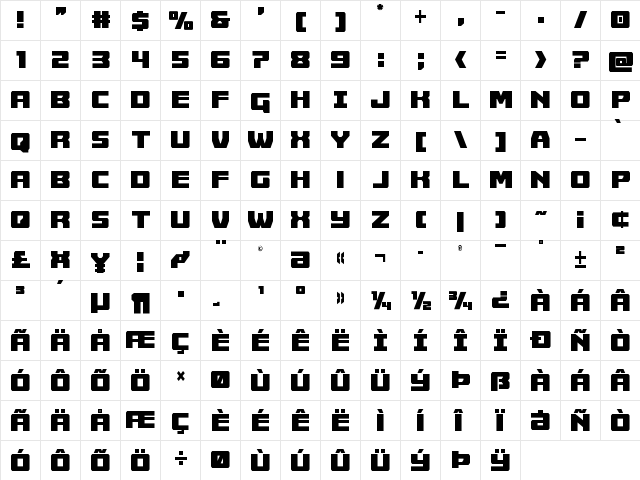
Cruiser Fortress Condensed Condensed
Design Context for Cruiser Fortress Condensed Typeface
Cruiser Fortress Condensed is a composed and adaptable typeface that performs quietly and consistently across a wide range of design contexts. The condensed width makes it efficient for tight spaces without sacrificing legibility.